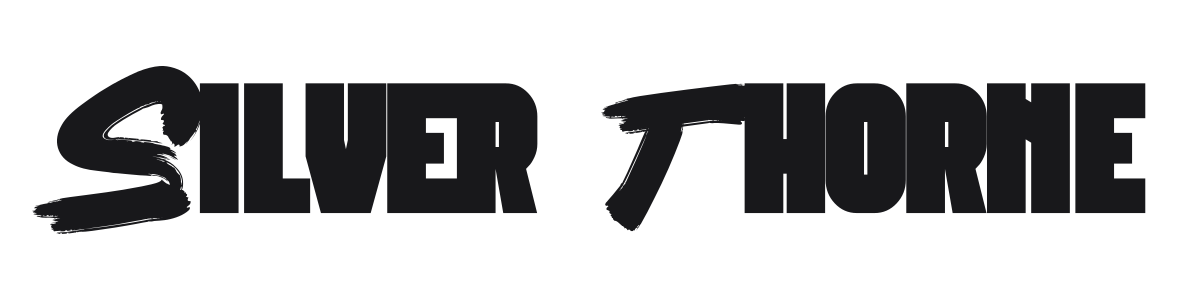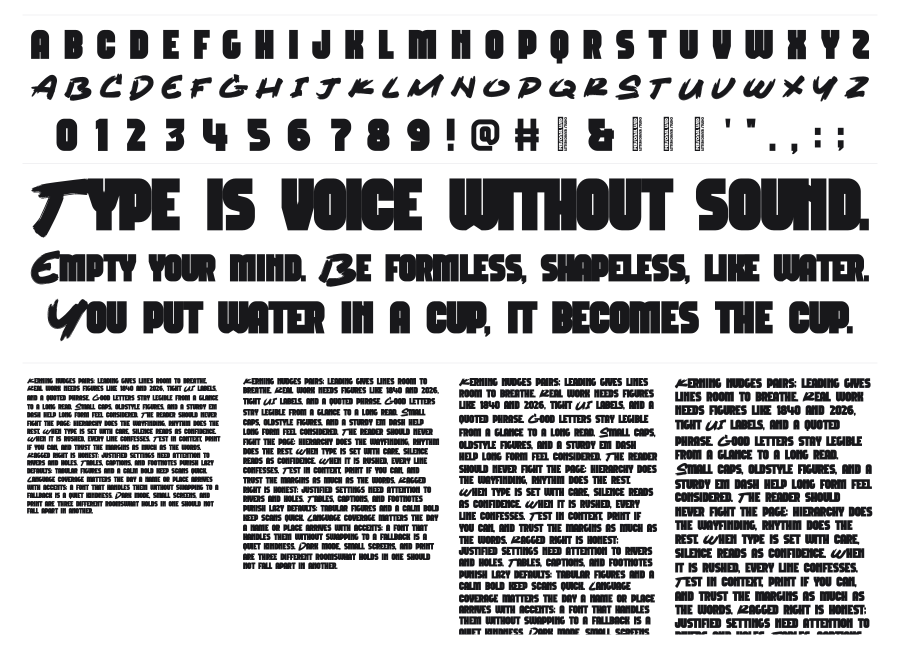
Silver Thorne
by Mocha Frappuccino
Silver Thorne is an ultra-condensed heavy display font built from thick, blocky characters with sharp angular notches cut into joints and terminals. The extreme compression and near-zero stroke contrast give it a dense, wall-like presence at headline sizes. It carries a gritty retro-industrial energy suited to sports branding, music, and street-culture design.